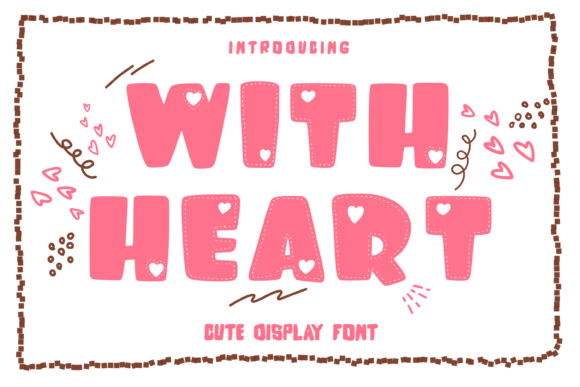
Introducing With Heart Font: The Perfect Choice for Romantic Designs
Are you looking for a font that can add a touch of romance and whimsy to your designs? Look no further than With Heart Font, a cute and chunky lettered display font perfect for Valentine’s Day and beyond. In this article, we’ll explore the features and benefits of With Heart Font, and show you how to use it to create stunning romantic designs.
What is With Heart Font?
With Heart Font is a unique and charming font designed specifically for romantic occasions. Its chunky and playful lettering style makes it perfect for creating eye-catching designs that are sure to capture the heart of your audience. Whether you’re creating Valentine’s Day cards, decorations, or social media graphics, With Heart Font is the ideal choice.
Key Features of With Heart Font
- Cute and Chunky Lettering: With Heart Font features a distinctive and adorable lettering style that’s perfect for creating romantic and playful designs.
- Perfect for Valentine’s Day: This font is specifically designed for Valentine’s Day, making it the ideal choice for creating romantic cards, decorations, and designs.
- Endless Possibilities: With Heart Font can be used for a wide range of design projects, from romantic cards and decorations to social media graphics and more.
Benefits of Using With Heart Font
Using With Heart Font can bring numerous benefits to your designs. Here are just a few:
- Adds a Touch of Romance: With Heart Font is designed to add a touch of romance and whimsy to your designs, making it perfect for Valentine’s Day and other romantic occasions.
- Stand Out from the Crowd: With its unique and chunky lettering style, With Heart Font can help your designs stand out from the crowd and grab attention.
- Easy to Read: Despite its playful style, With Heart Font is easy to read, making it perfect for creating designs that need to communicate a message.
- Versatile: With Heart Font can be used for a wide range of design projects, from romantic cards and decorations to social media graphics and more.
Design Ideas Using With Heart Font
With Heart Font is a versatile font that can be used for a wide range of design projects. Here are some design ideas to get you started:
- Valentine’s Day Cards: Create romantic Valentine’s Day cards for your loved ones using With Heart Font.
- Social Media Graphics: Create eye-catching social media graphics using With Heart Font to promote your brand or product.
- Decorations: Use With Heart Font to create romantic decorations for Valentine’s Day, such as banners, garlands, and more.
- Wedding Designs: Use With Heart Font to create beautiful wedding designs, such as wedding invitations, programs, and more.